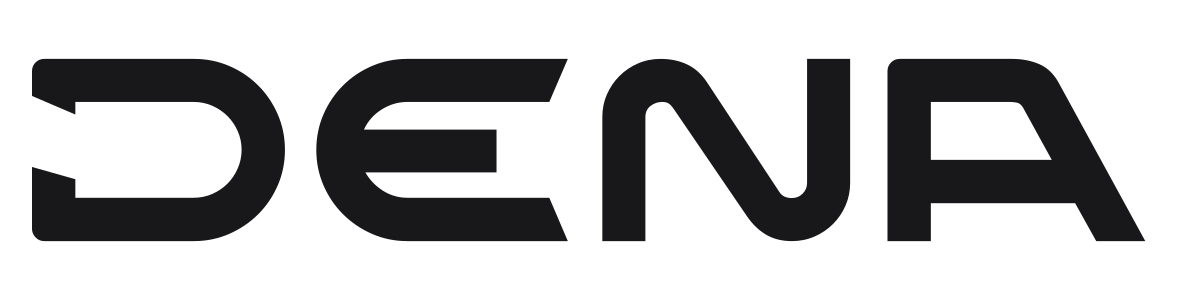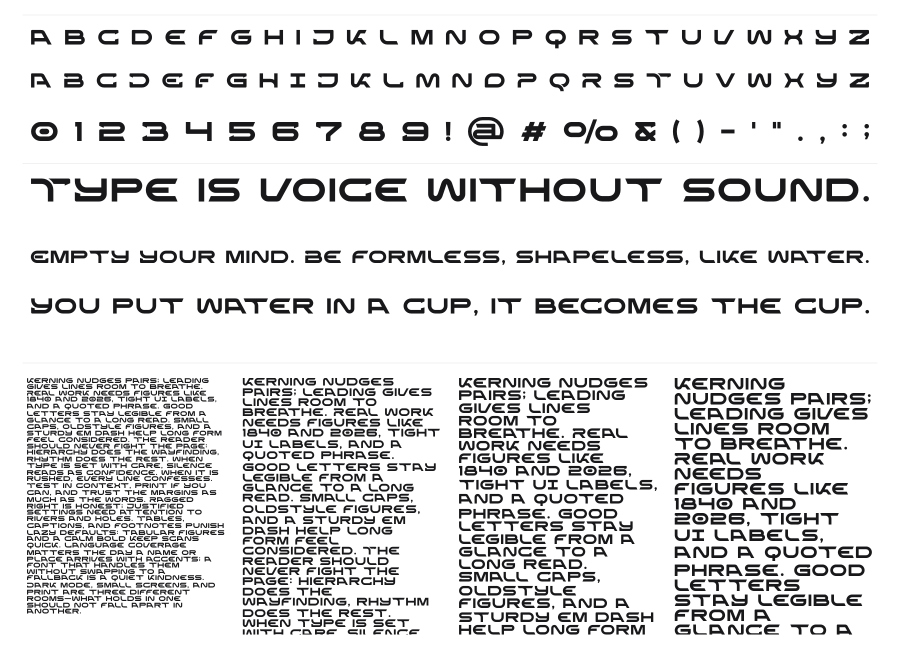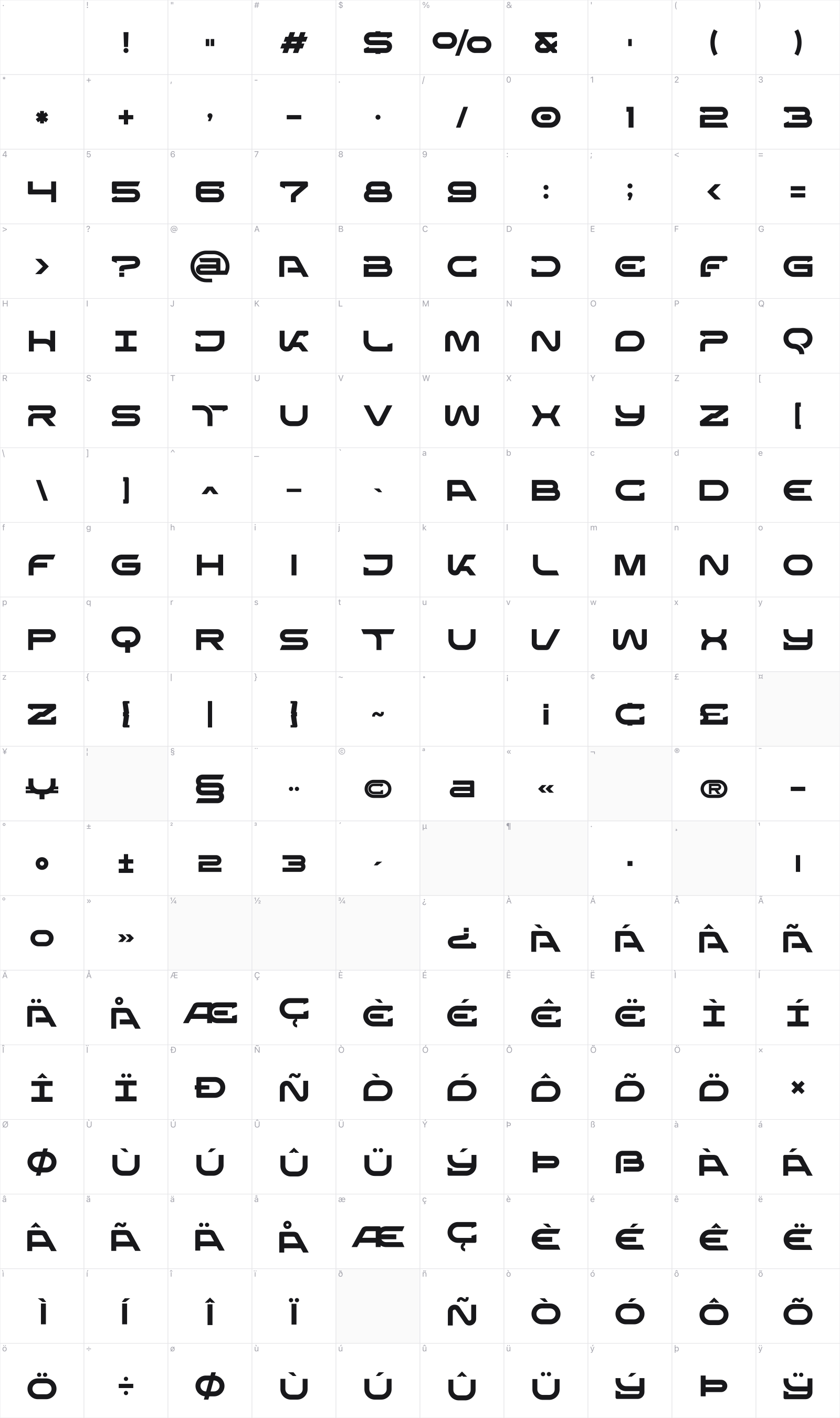
Dena
Dena is a wide, bold geometric sans-serif with a sharp futuristic character defined by flat terminals and subtly rounded interior corners. The near-monoweight strokes and expansive proportions give it a machine-cut, aerospace quality that works well at large sizes. Strong for logos, gaming titles, and tech-forward branding.